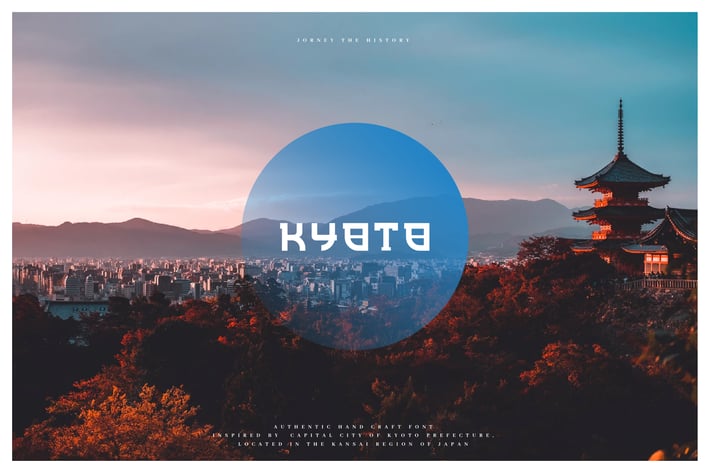
Kyoto - Japanese Display Typeface
Introducing Kyoto font. Are you looking for a bold and solid display font that has japanese traditional feeling? We can help! Try to download our Kyoto font. The font is suitable to use for many occasion such as traveling, poetry, movie title, book title, brand identity, and many more :)
Basic Latin A-Z solid
Basic Latin A-Z outline